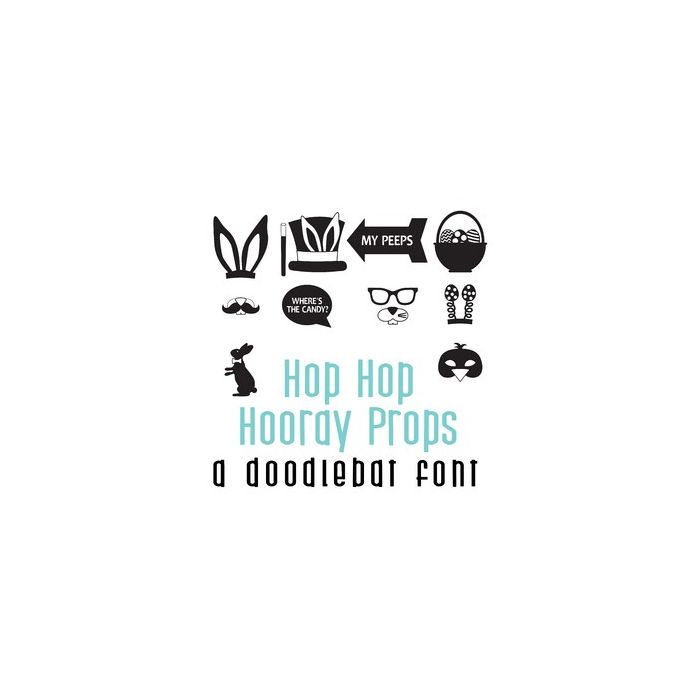
This adorable doodlebat font features 36 cute Easter photo props, perfect for cards, crafts, gifts, planner stickers, decor, classrooms, scrapbook pages and more! Glyphs are A-Z and 0-9